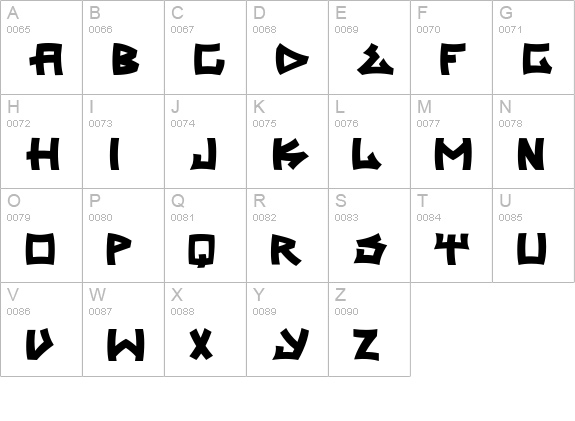
trasher 2 Font Details
Introducing Trasher 2, a dynamic and edgy font that perfectly captures the rebellious spirit of street culture. With its bold and rugged letterforms, Trasher 2 is the ultimate choice for designers seeking to add a touch of urban attitude to their projects. This font is a powerful tool that effortlessly brings a modern and unconventional vibe to any design, whether it's a poster, logo, or album cover. The sharp angles and distressed look of Trasher 2 make it a versatile typeface that can be used to create eye-catching headlines or to add a gritty texture to text blocks. One of the best features of Trasher 2 is that it is freely available to download at FontsMarket.com. This means that you can access this incredible font without any cost, making it an ideal choice for budget-conscious designers or anyone looking to add some urban flair to their work. Trasher 2 is designed with meticulous attention to detail, ensuring that each character maintains its unique personality while still harmonizing with the overall aesthetic. The font comes in a variety of weights, allowing you to experiment and find the perfect balance for your design. Whether you're working on a project for a music festival, a skateboarding brand, or simply want to inject some rebellious energy into your work, Trasher 2 is the go-to font. It effortlessly captures the raw energy and street style that defines the urban culture, making it a must-have for any designer's toolkit. So don't miss out on this incredible opportunity to elevate your designs with Trasher 2. Download it for free at FontsMarket.com and let your creativity run wild with this bold and captivating font.